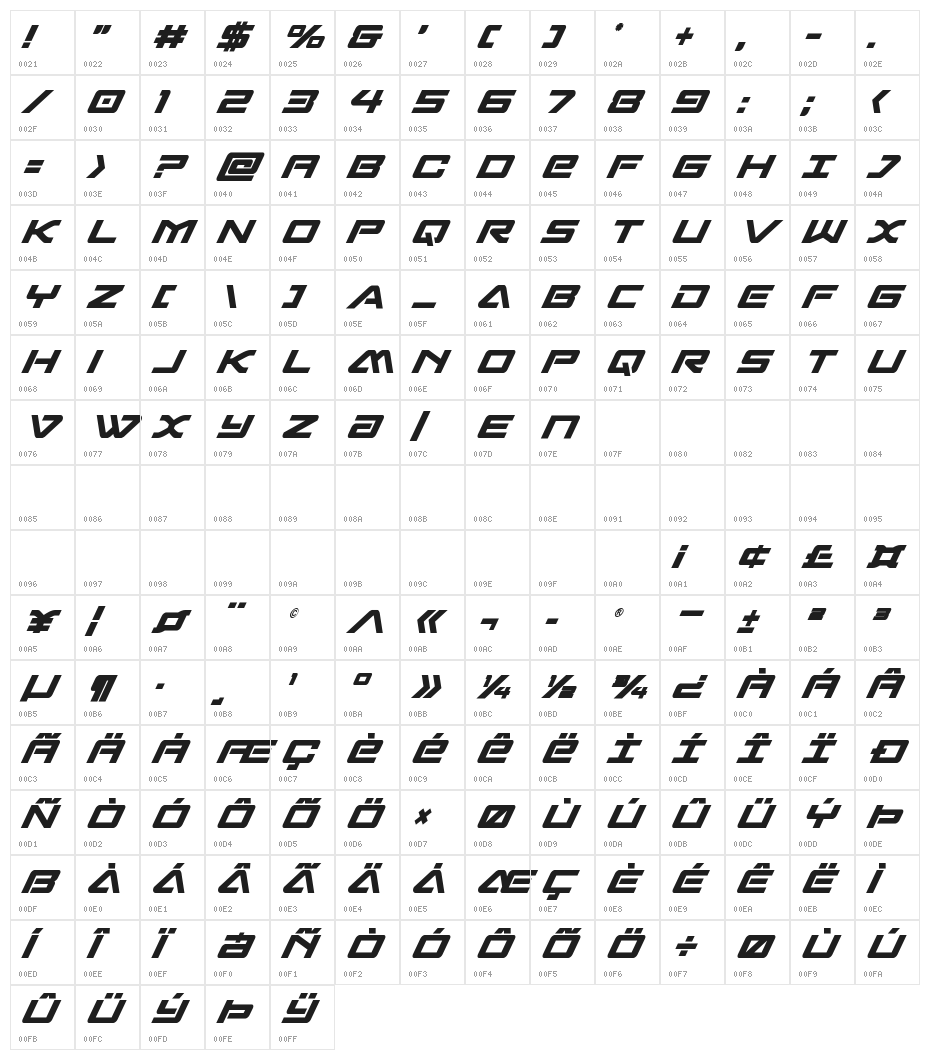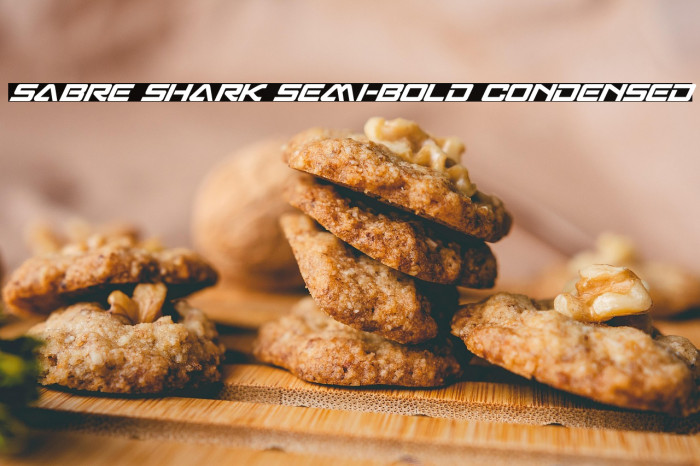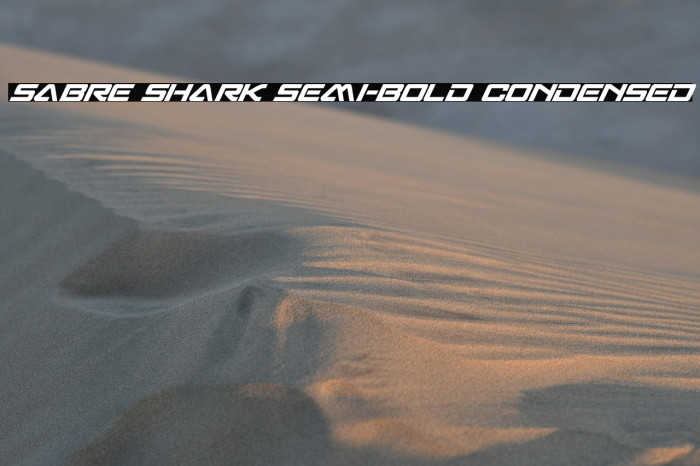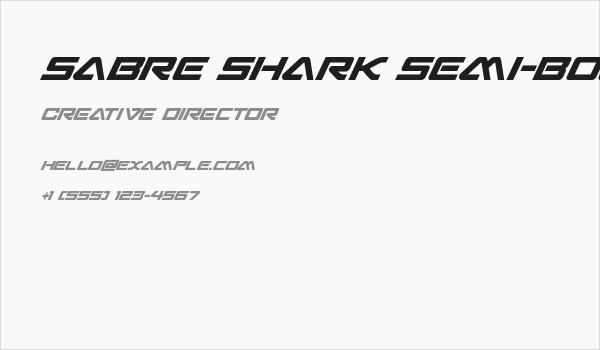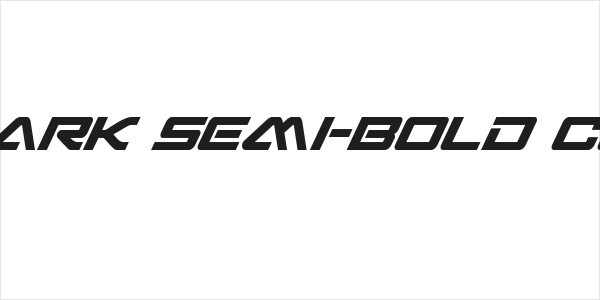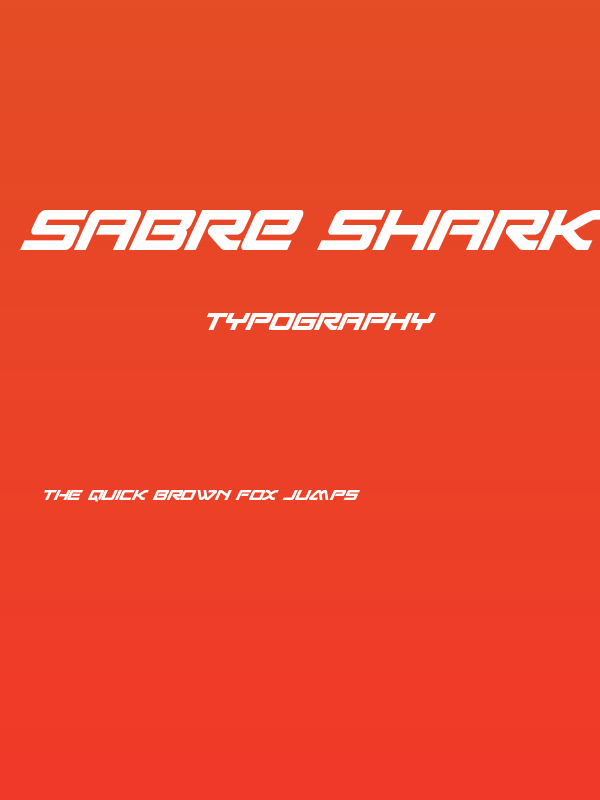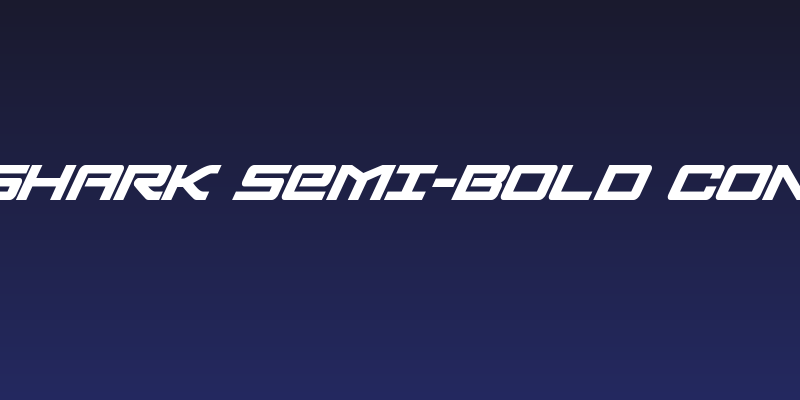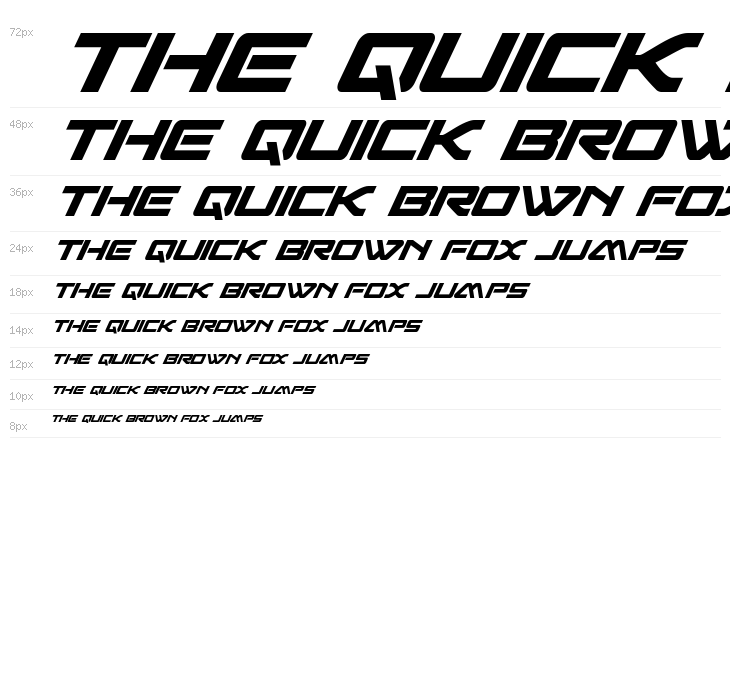
Sabre Shark Semi-Bold Condensed Font
Sabre Shark Semi-Bold Condensed Description
This font features a bold and condensed style with a futuristic and dynamic appearance. The characters are angular and sleek, with sharp edges and a forward-leaning stance that suggests movement and speed. The uppercase and lowercase letters maintain a consistent geometric form, while the numbers and special characters complement the overall design with their bold, impactful presence. The font's unique style makes it stand out, offering a modern and edgy look that is perfect for attention-grabbing designs.
| Proposed Projects | Ideal for sports branding, tech-related projects, futuristic posters, and dynamic logo designs. |